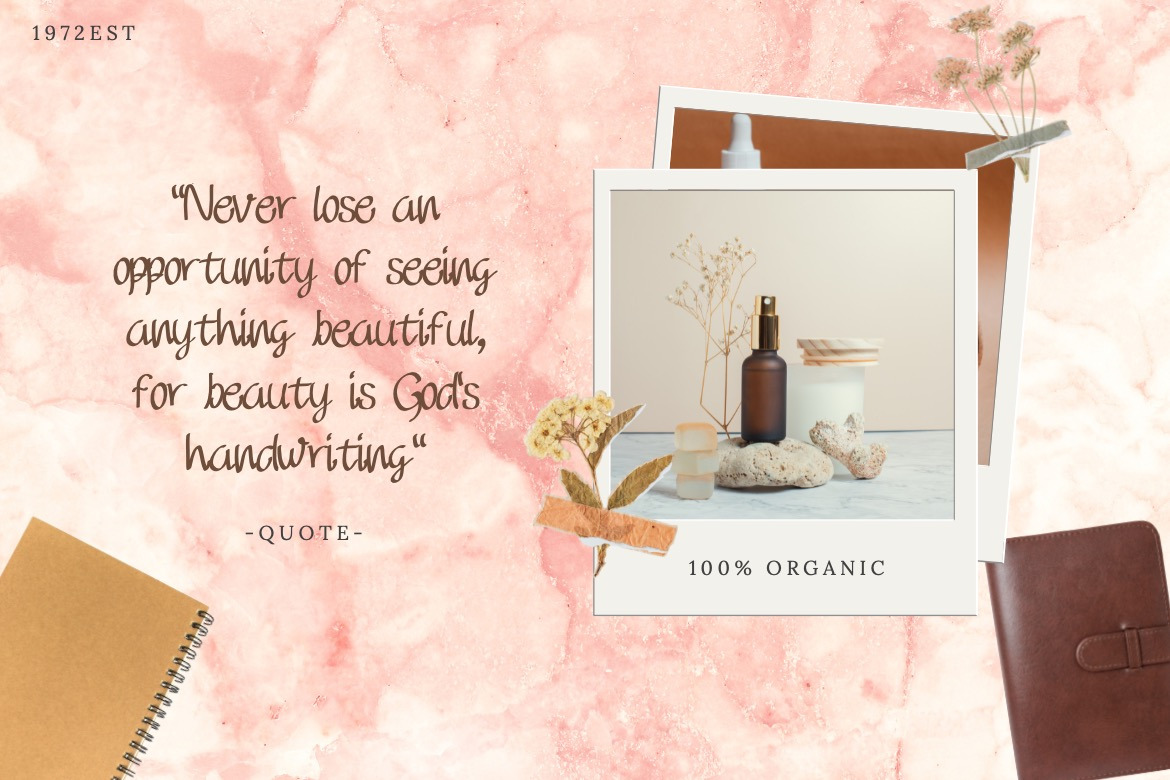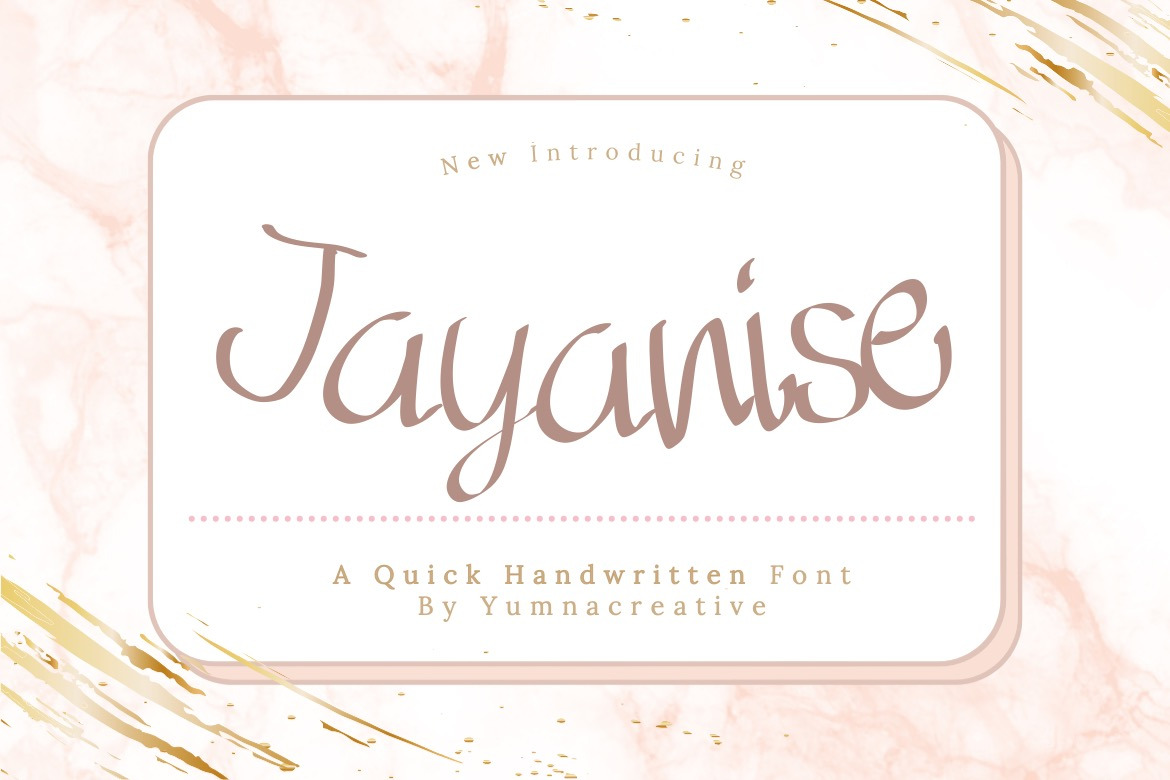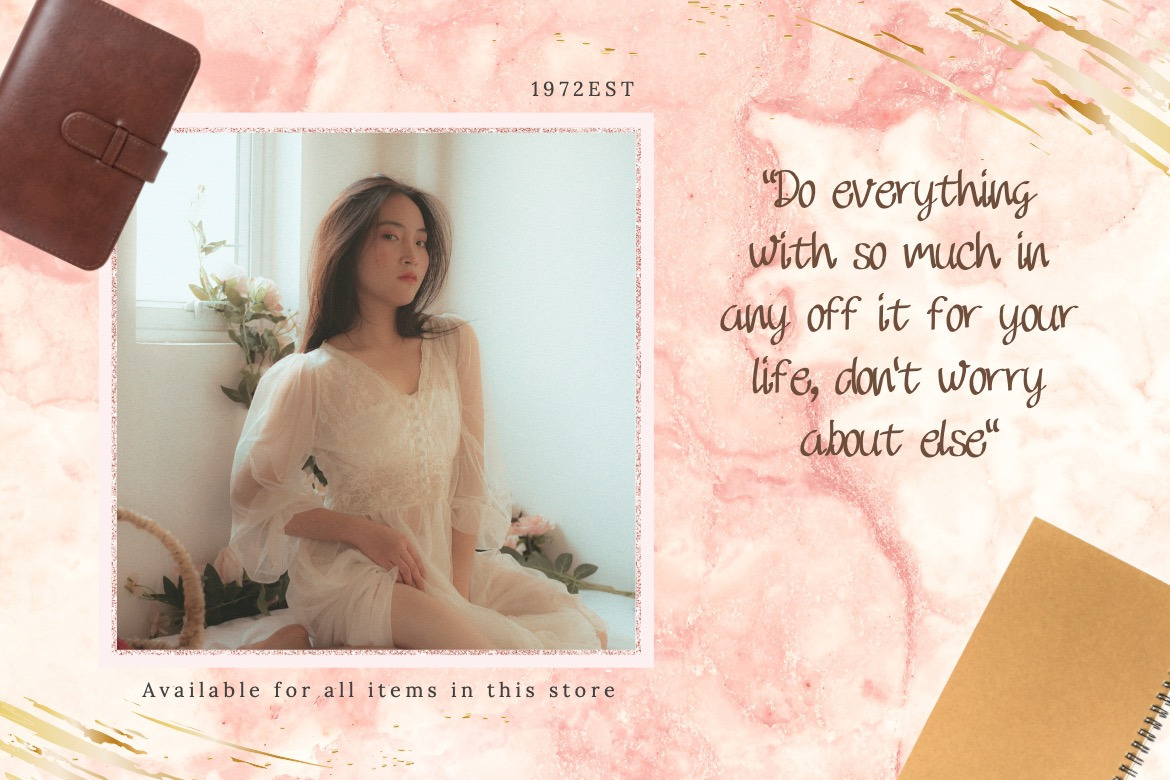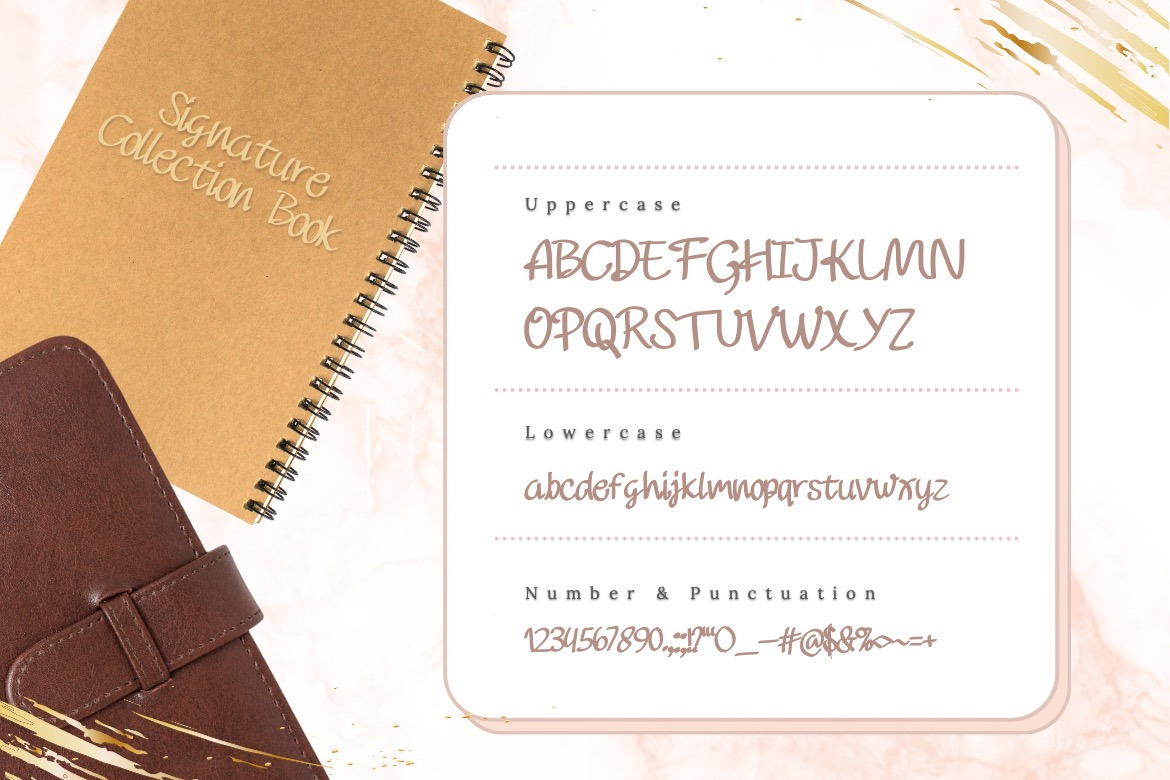
Introducing Jayanise - Quick Handwritten Font - This Font is a delicate, elegant and flowing handwritten font. It has beautiful and well as a unique blend of ligatures a letter, so that the authors compose it with a and little swirly embedding, so that a modern font is formed and ready to make a statement by adding elegant and unique flair to your next design project. Add it to your most creative ideas and notice how it makes them come alive! This Font can be used for various purposes such as Magazine Title, Poster, Logo, T-Shirt, Sub Title, Business cards, Magazines, Book Covers, Wedding Invitations, Templates Instagram Story Post, Greeting Cards, Quotes, etc. FEATURES OTF , TTF , WOFF Uppercase, Lowercase, Numbering & Punctuation Available Works On PC or MAC. Simple Way To Install Support Adobe Office, also works on Microsoft Office. FILES INCLUDED 3 Fonts Format file Documentation File Got any questions Drop me a line and I'll be happy to answer! Hope you Like it. Thanks. | Jayanise - Quick Handwritten Font | Dhabee